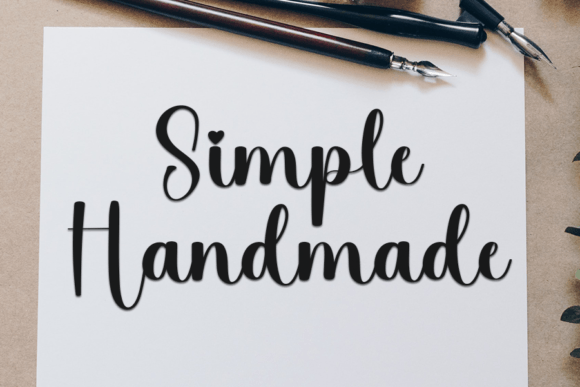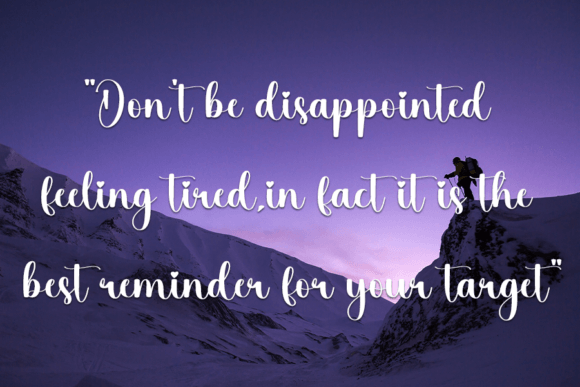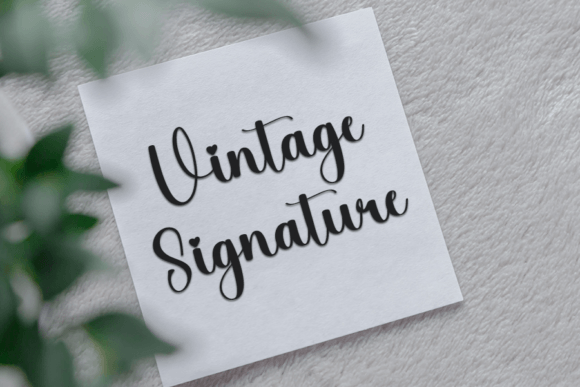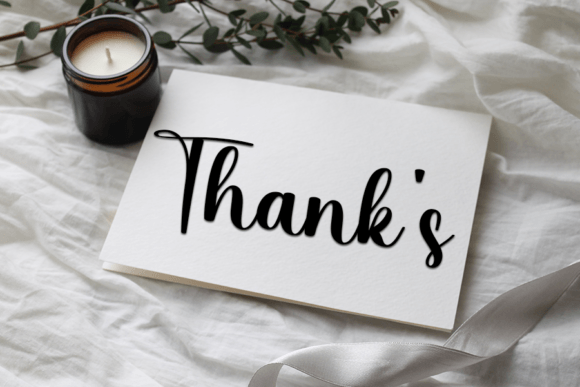
Introducing Daily Font: The Delicate Handwritten Font for Unique Designs
Are you a designer or crafter looking for a font that can add a touch of elegance and personality to your projects? Look no further than Daily Font, a beautiful and delicate handwritten font that is carefully crafted for a cool and unique design. In this article, we’ll explore the features and benefits of Daily Font, and show you can use it to take your designs to the next level.
What is Daily Font?
Daily Font is a handwritten font that is designed to be both elegant and approachable. It’s perfect for a wide range of design projects, from writing letters and invitations to creating titles and labels for food products. The font is carefully crafted to have a unique and distinctive look that will set your designs apart from the crowd.
Key Features of Daily Font
- Delicate and elegant design: Daily Font has a beautiful, delicate design that is perfect for creating elegant and sophisticated designs.
- Handwritten style: The font has a handwritten style that gives it a personal and unique touch.
- Cool and unique design: Daily Font is designed to be cool and unique, making it perfect for designers and crafters who want to create designs that stand out.
- Versatile: The font can be used for a wide range of design projects, from letters and invitations to titles and labels.
Benefits of Using Daily Font
- Adds a personal touch: Daily Font’s handwritten style gives your designs a personal touch that will make them more relatable and engaging.
- Creates a unique look: The font’s unique design ensures that your designs will stand out from the crowd and grab attention.
- Perfect for branding: Daily Font is perfect for creating branded designs that reflect your personality and style.
How to Use Daily Font
- Pair it with other fonts: Daily Font looks great when paired with other fonts, such as sans-serif fonts or script fonts.
- Experiment with colors: The font looks great in a range of colors, from bold and bright to soft and pastel.
- Use it for titles and headings: Daily Font is perfect for creating titles and headings that grab attention and add a touch of elegance to your designs.
Design Ideas Using Daily Font
- Invitations: Use Daily Font to create beautiful and elegant invitations for weddings, parties, and other special occasions.
- Food labels: The font is perfect for creating labels for food products, such as baked goods, jams, and chocolates.
- Stationery: Use Daily Font to create beautiful and unique stationery, such as notebooks, journals, and greeting cards.
- Branding: The font is perfect for creating branded designs, such as logos, business cards, and brochures.
Daily Font is a beautiful and delicate handwritten font that is perfect for designers and crafters who want to create unique and elegant designs. With its cool and unique design, versatile style, and ease of use, Daily Font is the perfect choice for a wide range of design projects. So why not give it a try and see how it can elevate your designs to the next level?